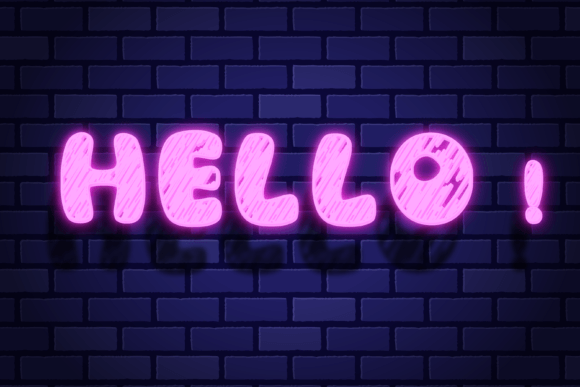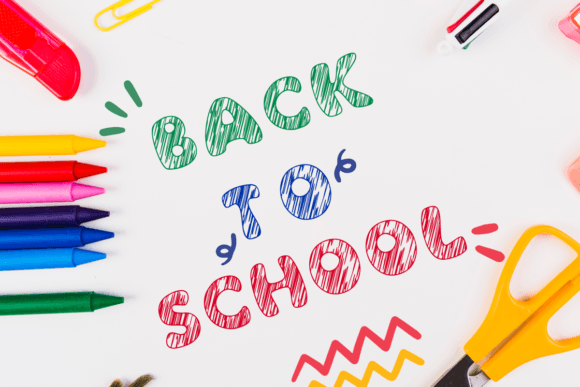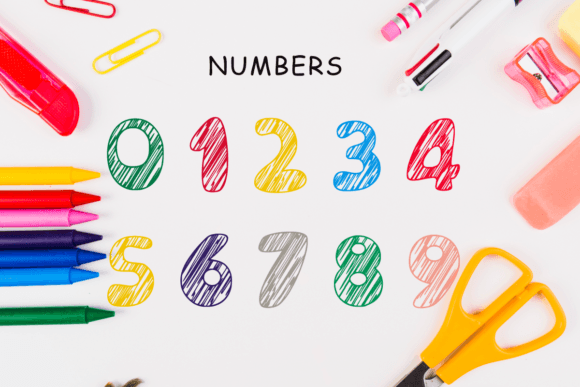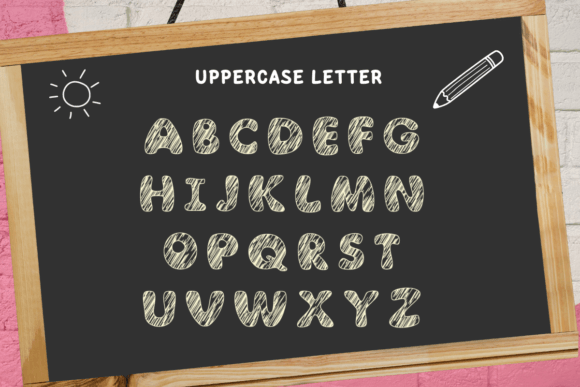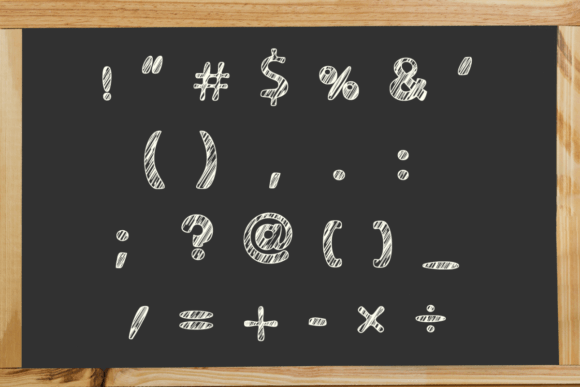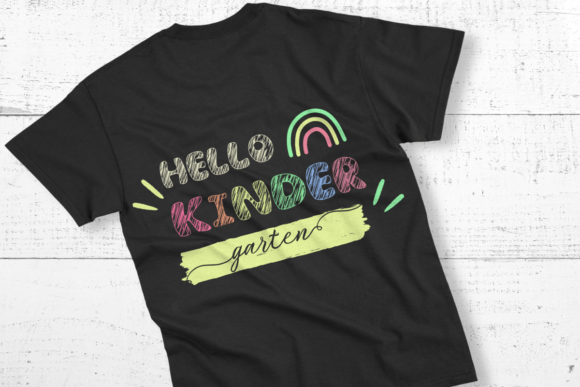
Introduction to Sketch Groovy Font
Sketch groovy is a cute and friendly display font.
This font is ideal for creating classroom resources, presentations, childrenโs books, t-shirt designs, making cards, and many more Use this font to add a touch of doodling and style groovy to your project.
Key Features of Sketch Groovy Font
Why Choose Sketch Groovy Font?